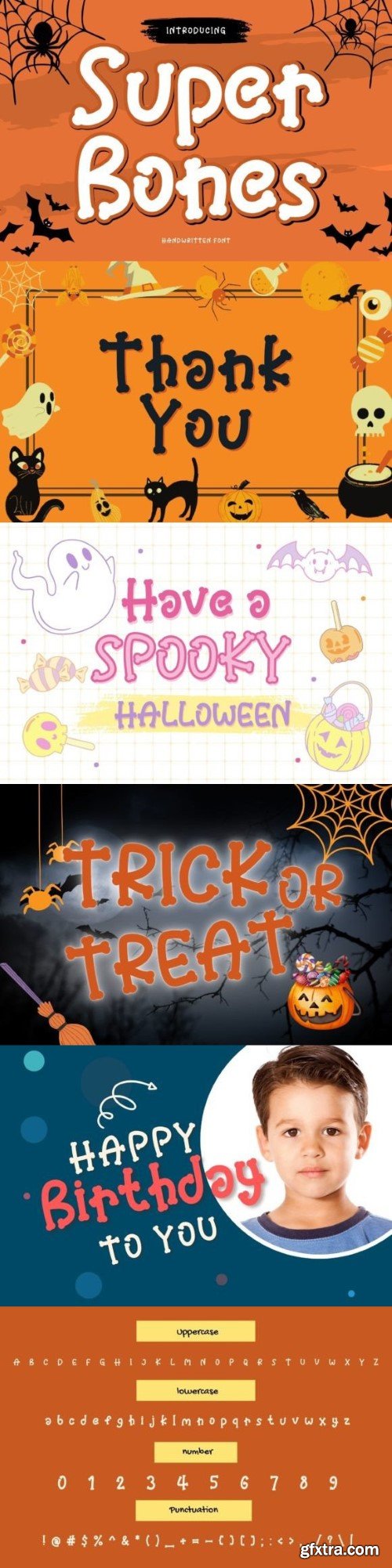
Super Bones is a scary and fun decorative font. It embodies playfulness and authenticity and is the perfect choice for all your favorite Halloween projects or blog posts, logos, branding, ads, invitations, greeting cards, planners, photo albums, decorations, and more. Add it to any of your designs, and enjoy the results!